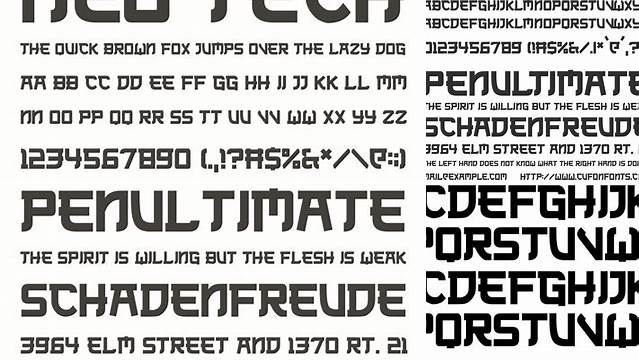
Neo Tech Medium Font Free Download: A Comprehensive Guide
Hey guys! If you're on the hunt for a cool, modern font that screams 'tech' without being overly complicated, then you've landed in the right place. We're diving deep into the Neo Tech Medium font, a fantastic choice for all sorts of design projects. This article will break down everything you need to know about Neo Tech Medium font free download, its features, where to grab it, and how to use it effectively. Get ready to boost your designs with a font that's both stylish and functional!
What Makes Neo Tech Medium Font Special?
So, what's the big deal about Neo Tech Medium font? Well, first off, it's got that sleek, futuristic vibe that's super popular right now. It's perfect for anything from website headers and app interfaces to logos and marketing materials. The Neo Tech Medium font offers a balanced aesthetic. It's not too thin or too bold, making it readable at various sizes. This middle-ground is what makes it so versatile. You can use it for body text, headings, or even in creative projects. Its clean lines and modern feel make it stand out without being distracting. It's designed to be both eye-catching and user-friendly. This font is very modern, and it's great for digital applications, too. It works well on screens, ensuring your text looks crisp and clear, whether on a high-resolution display or a mobile device. You'll find that this font is surprisingly adaptable. Its simplicity means it can be paired with many different design elements, from bold colors and striking graphics to minimalist layouts. It's a true chameleon in the world of fonts.
Another great thing about Neo Tech Medium font is its readability. Unlike some tech-inspired fonts that can be hard on the eyes, this one is designed to be easily legible. This is super important, especially if you're using it for longer pieces of text. The medium weight of the font strikes the right balance, making it easy to read without appearing too heavy. The design also has a timeless quality. While it fits perfectly with current trends, it's not so trendy that it will feel dated in a few years. This longevity makes it a great investment for your design library. Plus, the font often comes with a full character set, including numbers and special symbols, which adds to its usability. Whether you're a graphic designer, a web developer, or just someone who loves to create, the Neo Tech Medium font can add a professional, modern touch to your work. It is a workhorse font that offers both style and functionality. Its clean, straightforward design ensures that your message is always clear and impactful. It is a smart choice for anyone looking to elevate their design game.
How to Use Neo Tech Medium Font in Your Designs
Once you've got your Neo Tech Medium font free download and have it installed, it's time to put it to work! This font shines in various applications, from digital designs to print materials. Think about using it for website headers, where its modern style can instantly grab attention. The clean lines of the font make it perfect for displaying your brand name or a catchy tagline. In app design, Neo Tech Medium font works well for interface elements. Its readability makes it a great choice for menus, buttons, and informational text, ensuring that your app looks polished and easy to navigate. You could also use this font in your marketing materials, like posters, flyers, and social media graphics. Its modern aesthetic can help your message stand out from the crowd. Consider using it in your logo design. The font's versatility makes it a good fit for various logo styles, whether you want something minimalist or a bit more intricate. Be sure to experiment with different sizes and weights of the font. This allows you to find the perfect balance for your specific design needs. Pairing it with other fonts can create visual interest. Try combining Neo Tech Medium font with a complementary font for body text or secondary headings. This can add depth and dimension to your design.
Also, keep an eye on the font's kerning and spacing. These adjustments can improve the readability and visual appeal of your text. Make sure the spacing between letters is consistent, especially when using the font in headlines. Don't be afraid to experiment with color and background. The Neo Tech Medium font works well with various color schemes, but consider the contrast between your text and the background to ensure readability. White text on a dark background, or dark text on a light background, usually provides the best results. Remember that the font is just one part of your overall design. It's essential to consider other elements, such as images, layout, and overall style, to create a cohesive and visually appealing design.
Tips and Tricks for Using Neo Tech Medium Font
Let's dive into some pro tips to get the most out of your Neo Tech Medium font. First off, consider the context of your design. Is it for a website, a print ad, or something else? This will influence how you use the font. On websites, think about using it for headings and navigation elements, where its clean lines can make your site look modern and organized. For print materials, make sure the font is large enough to read easily. Avoid using it for very long blocks of text, as its medium weight might become tiresome for extended reading. Experiment with different weights. The Neo Tech Medium font often comes in various weights, such as light, regular, and bold. Using these different weights can add visual variety and hierarchy to your text. Make sure you pick the right font weight for the right purpose. Bold weights work well for headings, while regular or light weights are often better for body text.
Consider your color palette. The font's appearance can be affected by the colors you use. Try testing the font with different colors to see how it looks against various backgrounds. This is particularly important for digital designs, where the font's color can affect its readability. The font often looks great in contrasting colors, which helps the text stand out. In the design world, don't underestimate the importance of kerning and leading. Kerning is the space between individual letters, while leading is the space between lines of text. Fine-tuning these settings can improve the readability and visual appeal of your text. Check the font's kerning settings to ensure that the letters are evenly spaced. Also, adjust the leading to avoid the text appearing cramped or spaced out.
Take advantage of the font's versatility by using it in both large and small sizes. It is a great choice for headlines, and it also works well for smaller text, such as captions and subheadings. The design is designed to be both readable and attractive. Try using the font in different formats. The font usually comes in different formats, such as TTF and OTF. Test which format works best for your specific design software and operating system. It's a good idea to test your designs on different devices. This will help you ensure that the font looks good on various screen sizes and resolutions. Make sure the font is readable on all devices, as many users may access your content via mobile phones or tablets. Pay attention to the details. Small details, like the alignment of the text and the spacing between words, can make a big difference in the overall look of your design. Take your time, be creative, and have fun!
So, there you have it, guys! The Neo Tech Medium font is a fantastic choice for anyone looking to add a modern, tech-inspired touch to their designs. With its clean lines, excellent readability, and versatility, it's a font that can elevate any project. And with the ability to Neo Tech Medium font free download available, it's accessible to everyone. Just remember to always download from reputable sources and check the licensing. Happy designing!